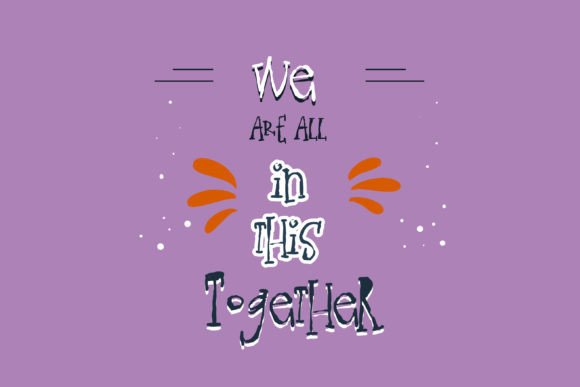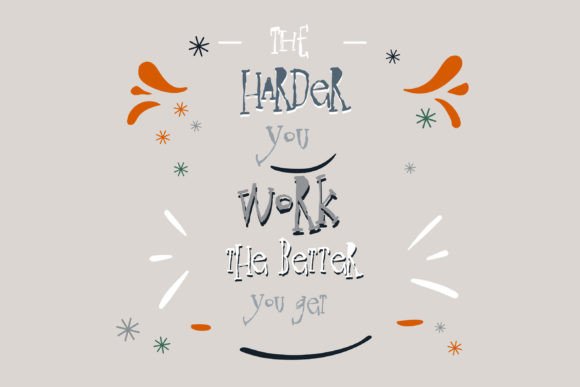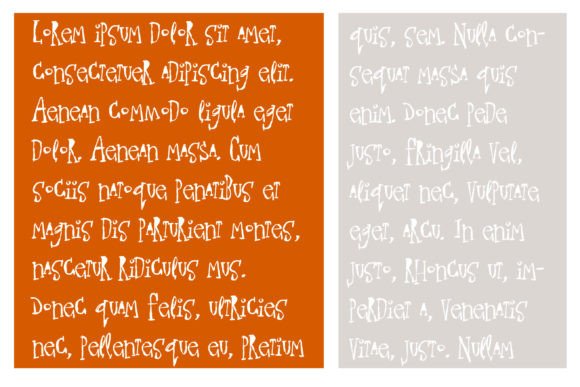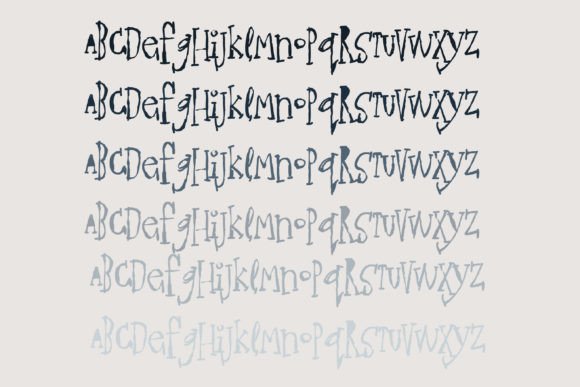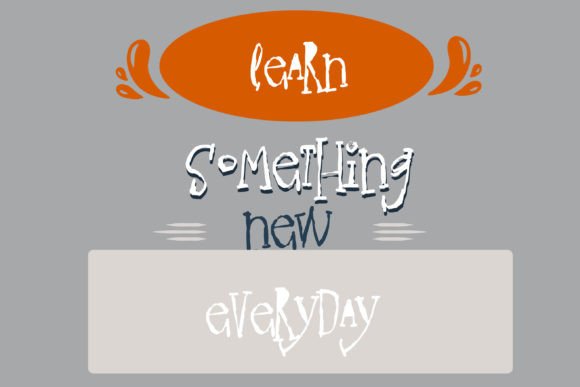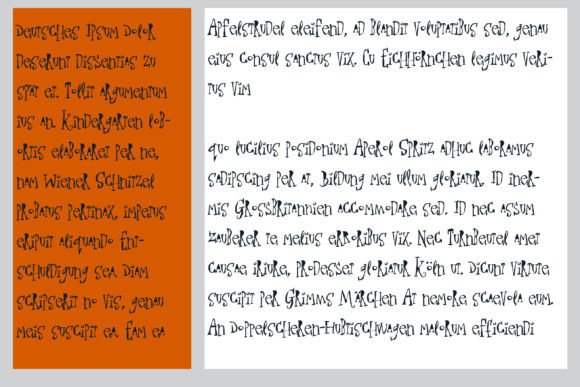
Gossip Ghoul Font: The Ultimate Spooky Typeface for Halloween Fun
Are you ready to add a dash of spooky fun to your Halloween projects? Look no further than the Gossip Ghoul font, a delightfully playful typeface designed to bring the magic of the season to your designs. With its whimsical and eerie letterforms, this font is perfect for party invitations, posters, and spooky decorations that will leave your friends and family screaming with delight.
The Spooky Charm of Gossip Ghoul Font
The Gossip Ghoul font is a masterfully crafted typeface that captures the essence of Halloween. Its letters are designed to resemble the twisted, curly tendrils of a witch’s spellbook, with a playful nod to the spooky and unknown. The font’s whimsical design makes it perfect for a variety of Halloween-themed projects, from creepy invitations to haunted house posters.
What Makes Gossip Ghoul Font So Special?
So, what sets the Gossip Ghoul font apart from other typefaces? Here are just a few reasons why this font is a must-have for designers and crafters:
• Unique and Playful Design: The Gossip Ghoul font features a one-of-a-kind design that’s sure to stand out from the crowd. Its playful, whimsical letterforms are perfect for adding a touch of Halloween fun to your projects.
• Eerie and Spooky: The font’s eerie and spooky vibe makes it perfect for Halloween-themed projects, from party invitations to haunted house posters.
• Versatile: The Gossip Ghoul font can be used for a wide range of projects, from digital designs to print materials.
How to Use Gossip Ghoul Font in Your Projects
Now that you’ve fallen in love with the Gossip Ghoul font, it’s time to put it to use in your projects. Here are a few ideas to get you started:
• Party Invitations: Create spooky and fun party invitations that will set the tone for your Halloween bash.
• Posters and Flyers: Design eye-catching posters and flyers that will grab attention and draw in the crowds.
• Spooky Decorations: Use the Gossip Ghoul font to create spooky decorations, such as banners, garlands, and signs.
• Digital Designs: Incorporate the font into your digital designs, such as social media graphics, blog posts, and email newsletters.
The Gossip Ghoul font is a must-have for designers and crafters looking to add a touch of Halloween magic to their projects. With its unique and playful design, eerie and spooky vibe, and versatility, this font is perfect for a wide range of Halloween-themed projects. So why wait? Download the Gossip Ghoul font today and get ready to cast a spell of fun and creativity on your designs!
• What is the Gossip Ghoul font?: The Gossip Ghoul font is a playful and whimsical typeface designed for Halloween-themed projects.